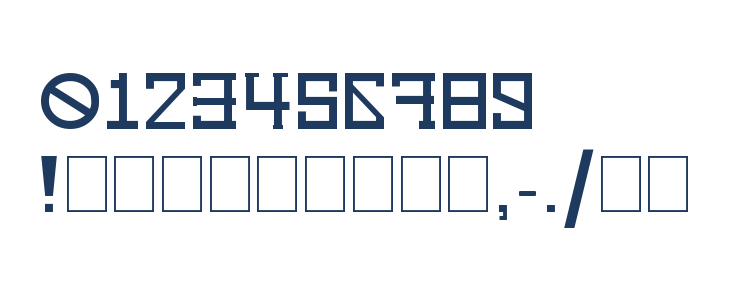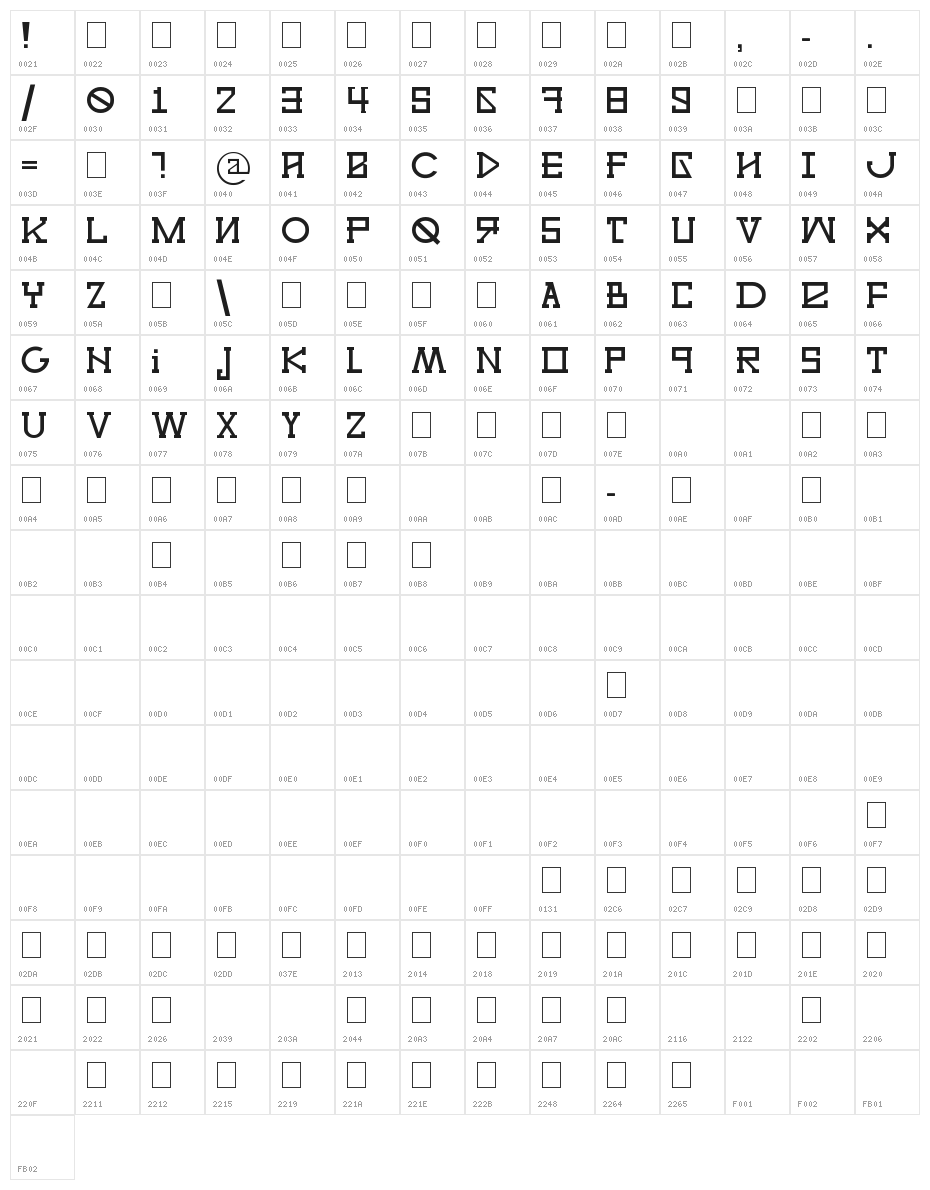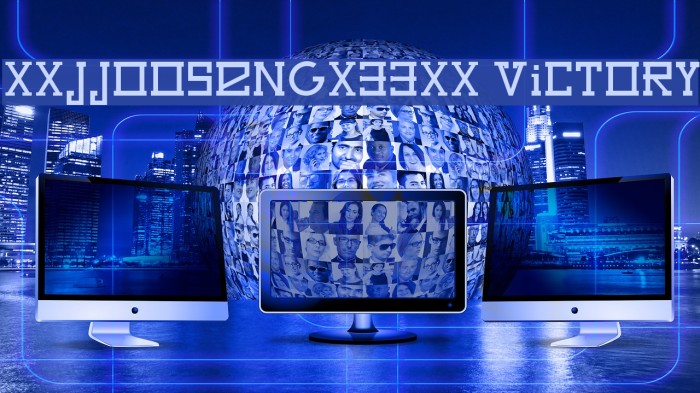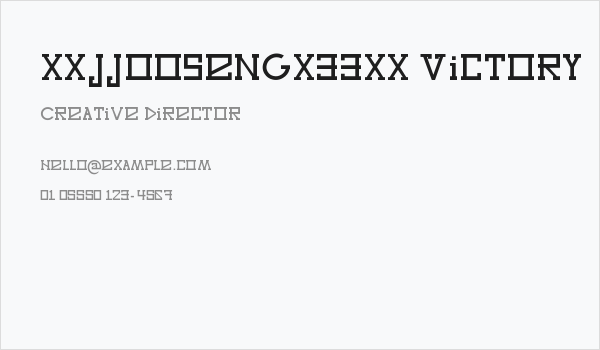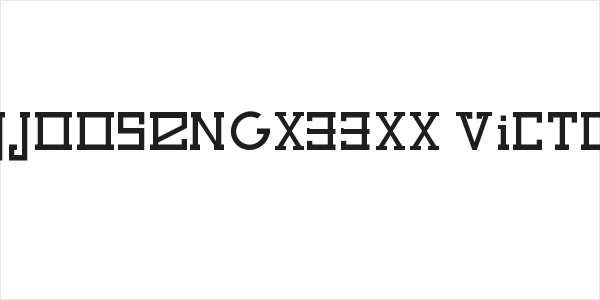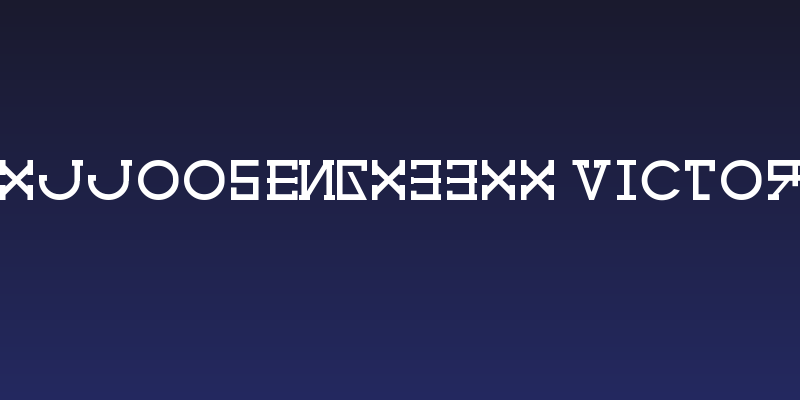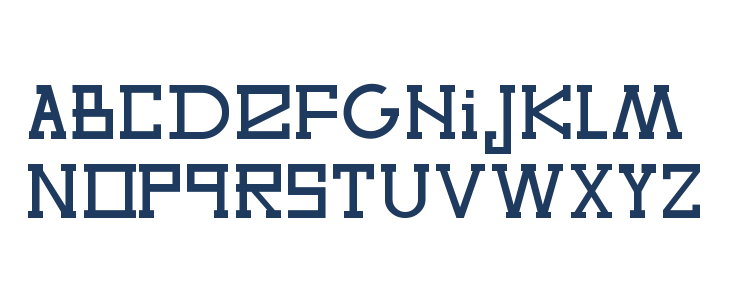
xxjjoosengx33xx Victory Font
xxjjoosengx33xx Victory Description
This font features a bold and geometric design with a distinct futuristic and industrial aesthetic. The characters are constructed with sharp angles and straight lines, giving them a mechanical and structured appearance. The uppercase letters are particularly striking, with unique cutouts and shapes that add to the font's modern and edgy feel. The numerals and special characters maintain this cohesive style, making the font suitable for projects that require a strong visual impact. The overall design is both eye-catching and versatile, suitable for a variety of creative applications.
Overall StyleFuturistic, Industrial
Proposed ProjectsIdeal for technology branding, sci-fi movie posters, video game titles, and modern graphic design projects.